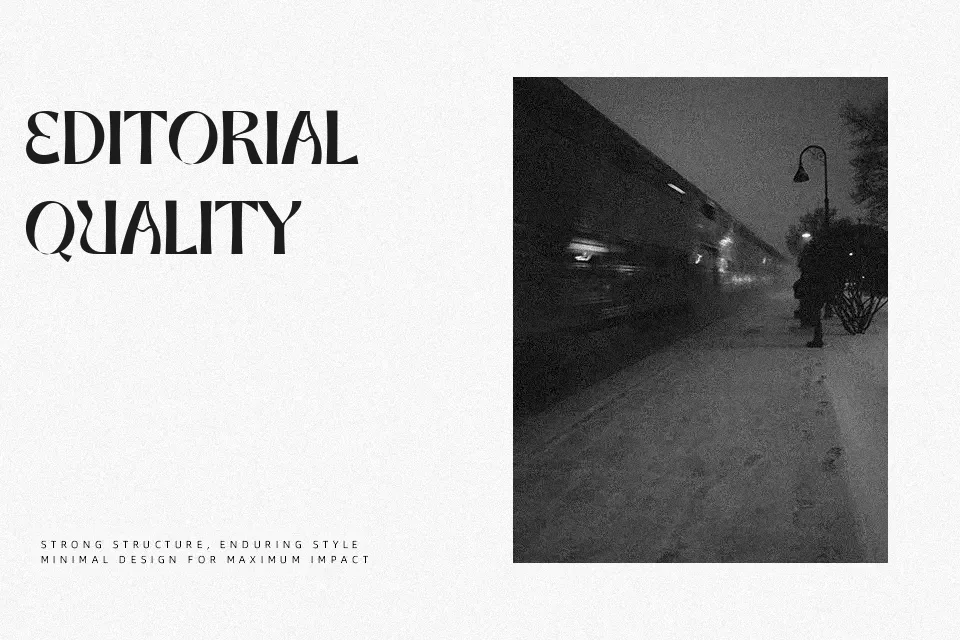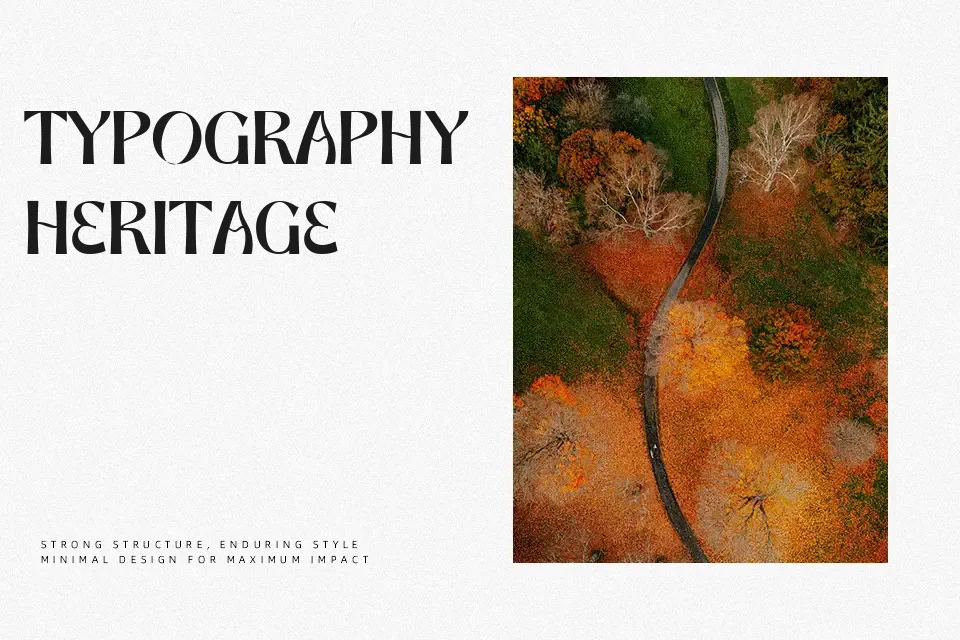
The Flame Proofer Font
The Flame Proofer Font commands attention through sharp serifs, substantial vertical stroke contrast, and tightly spaced letterforms across its uppercase and lowercase glyphs. Distinctive bracketed terminals and crisp angular contours provide strong optical presence in short display lines. Proportions remain balanced throughout the core Latin alphabet, ensuring individual characters stay crisp when set against clean backgrounds. The typeface performs best when displayed at larger sizes, as the fine contrast joins lose definition when compressed into body text.
Best For: vintage product packaging, editorial headlines, restaurant signage
Not Ideal For: long paragraph text, small interface labels, dense corporate reports
Perfect for branding, headline, and packaging, with a bold and display style.